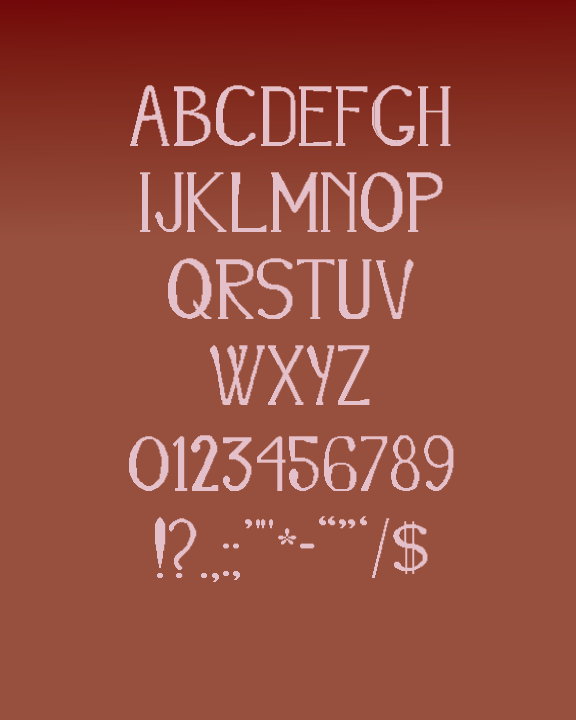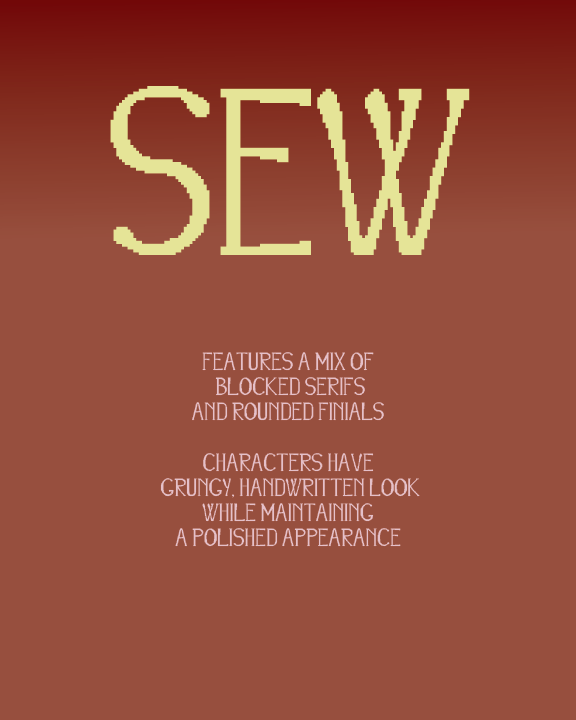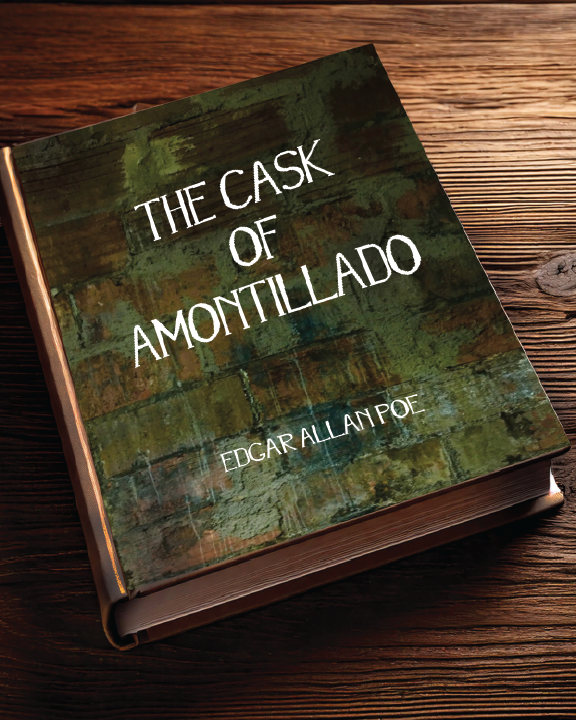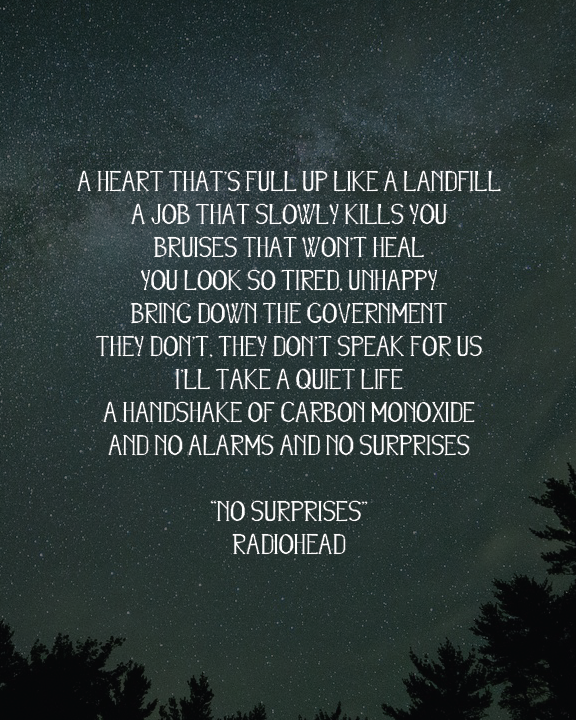
• A typeface inspired by artistic handwritten letters throughout history while also drawing from modern influences such as album cover artwork.
This typeface uses a combination of block serifs and rounded finials and is best used for short titles and emphasis